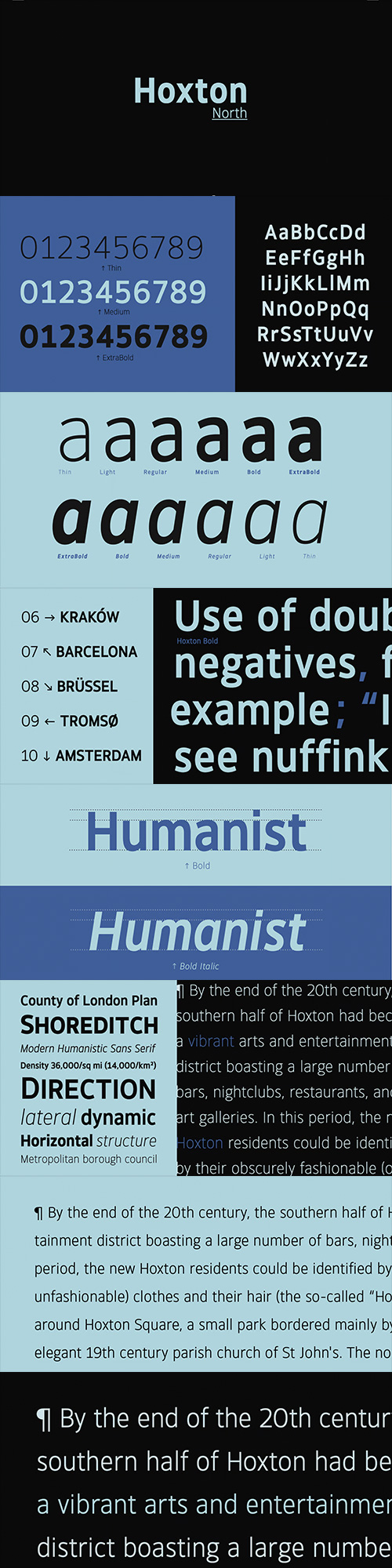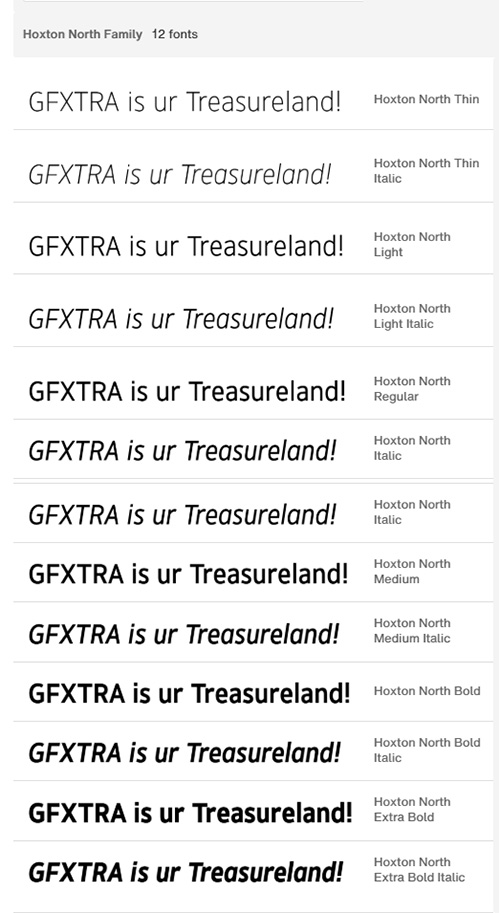
Hoxton North - 12 Styles Font Family $179
- Hoxton North came out of the concept to create something distinctly British, drawing on modernist influences such as Edward Johnston's typeface for the London Underground and Gill Sans. A humanistic san serif typeface with a British modern quality. Open forms with subtle contrast promote good readability across a wide range of media in both print and screen. The compact letterforms give it a strong lateral dynamic that is space efficient across design layouts. Details include 620 characters, seven weights with true italics, small caps, manually edited kerning and Opentype features.